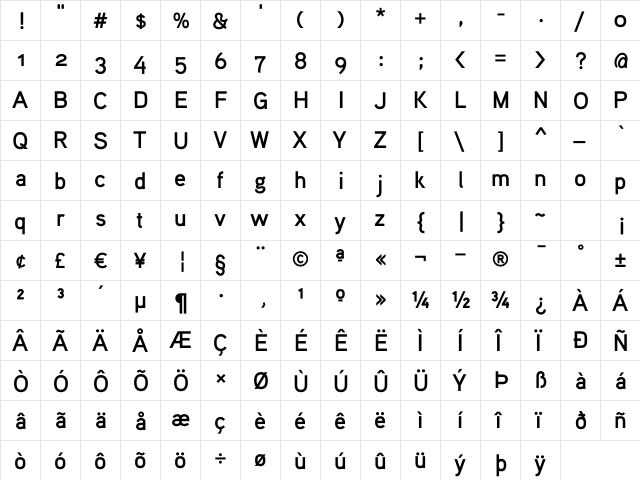
Aaux ProBold OSF Regular
Design Context for Aaux ProBold OSF Typeface
Aaux ProBold OSF offers clean, dependable letterforms without strong stylistic allegiance, making it a practical choice for designers who need flexibility. Its bold stroke weight gives it real presence on the page.